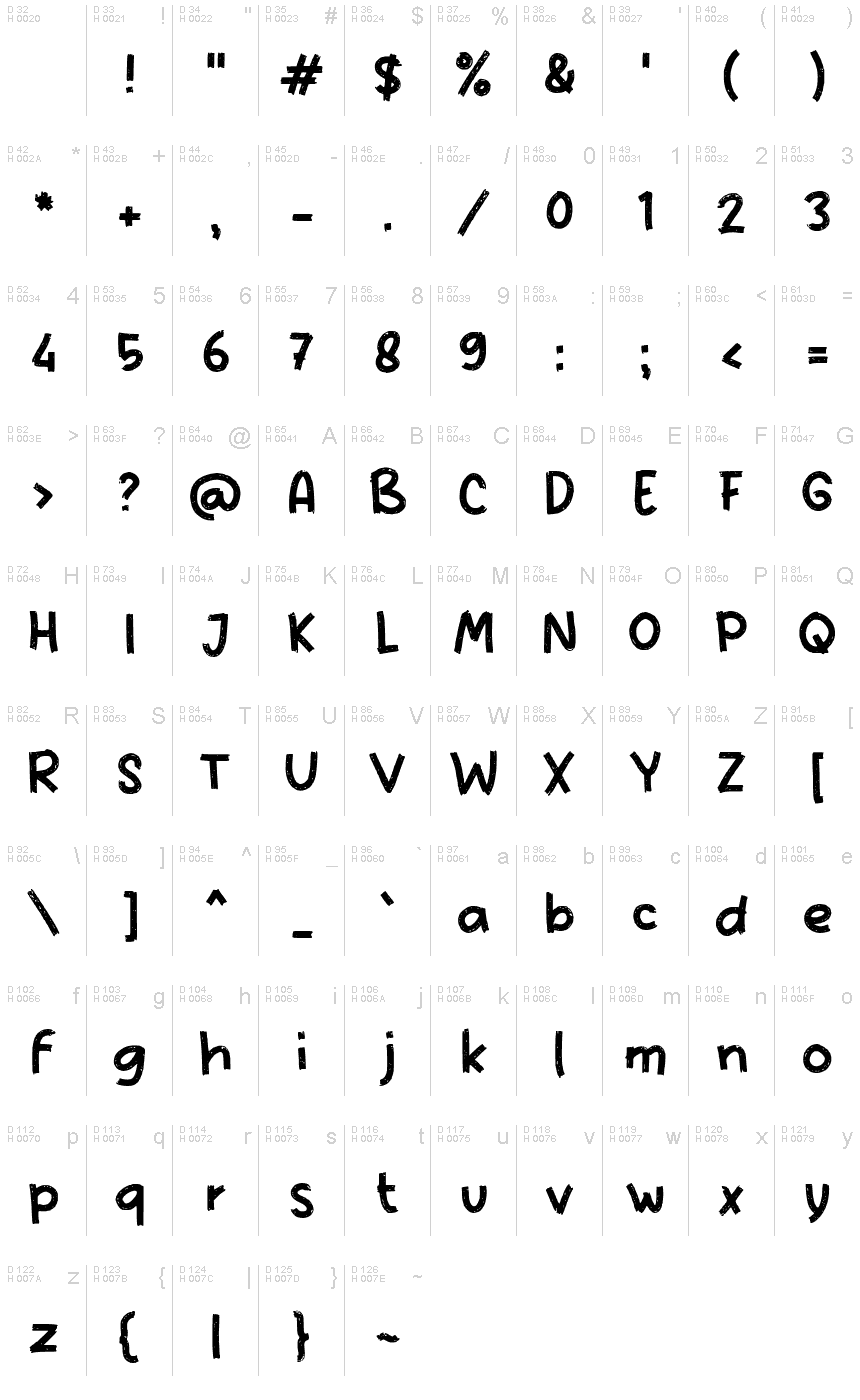
Epres Chia
Epres Chia, designed by wep, is a captivating brush font that injects a dash of modernity and elegance into any project. With its semi-bold weight, this font strikes the perfect balance between being bold and refined. Epres Chia is ideal for creating eye-catching logos, stylish branding materials, artistic packaging designs, expressive social media graphics, and trendy fashion magazines. Its versatile nature makes it suitable for a wide range of projects including food blogs with a fresh twist, luxury product advertisements that demand attention, and even contemporary wedding invitations that exude charm and sophistication. Unleash your creativity with Epres Chia!